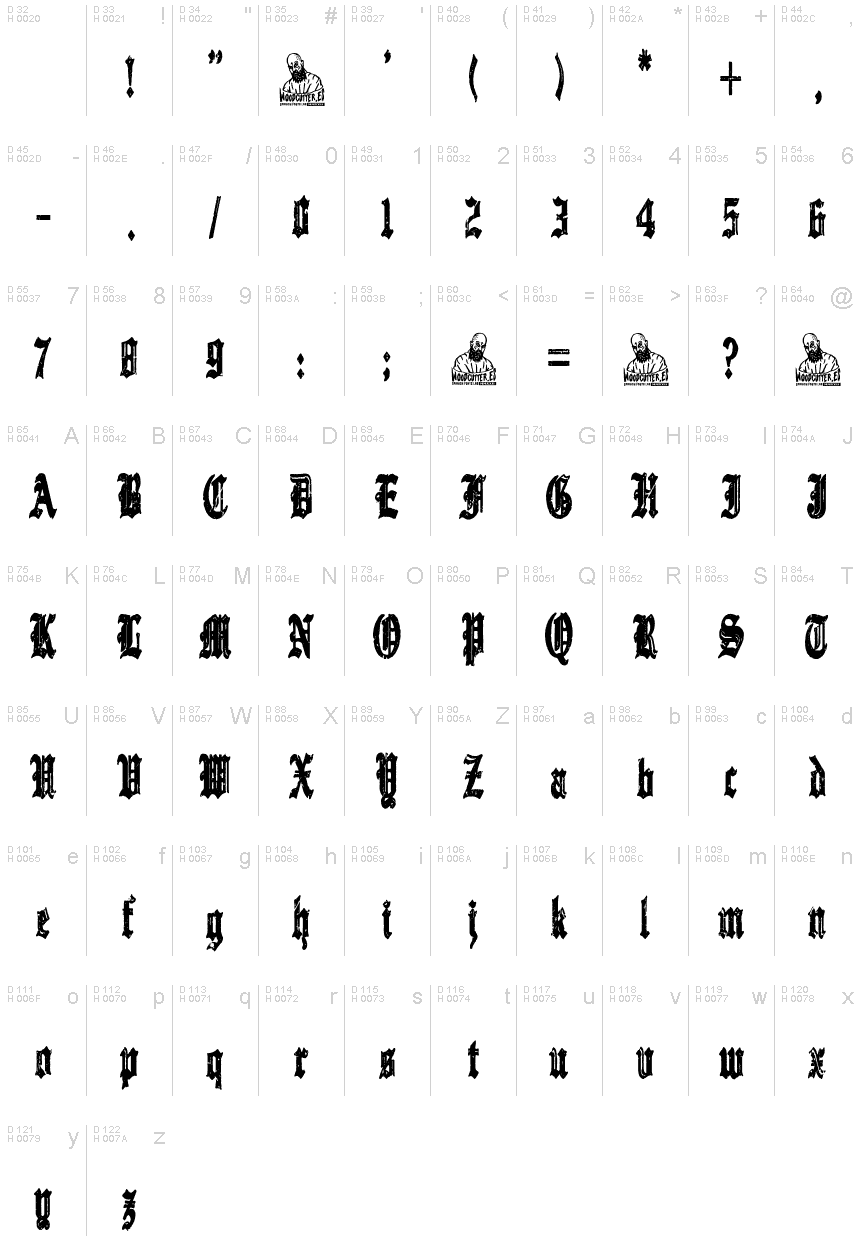
Gothic Destroyer, a medieval-inspired font by Woodcutter, unleashes a bold and condensed typeface that exudes an aura of strength and power. Its gothic design boasts sharp edges and intricate details, perfect for projects seeking to evoke a sense of mystery or darkness.
Let your imagination run wild as Gothic Destroyer brings life to book covers, movie titles, heavy metal bands' logos, or even video game interfaces.
This font commands attention and adds a touch of edge to any project seeking an unforgettable visual impact.
Gothic Destroyer.